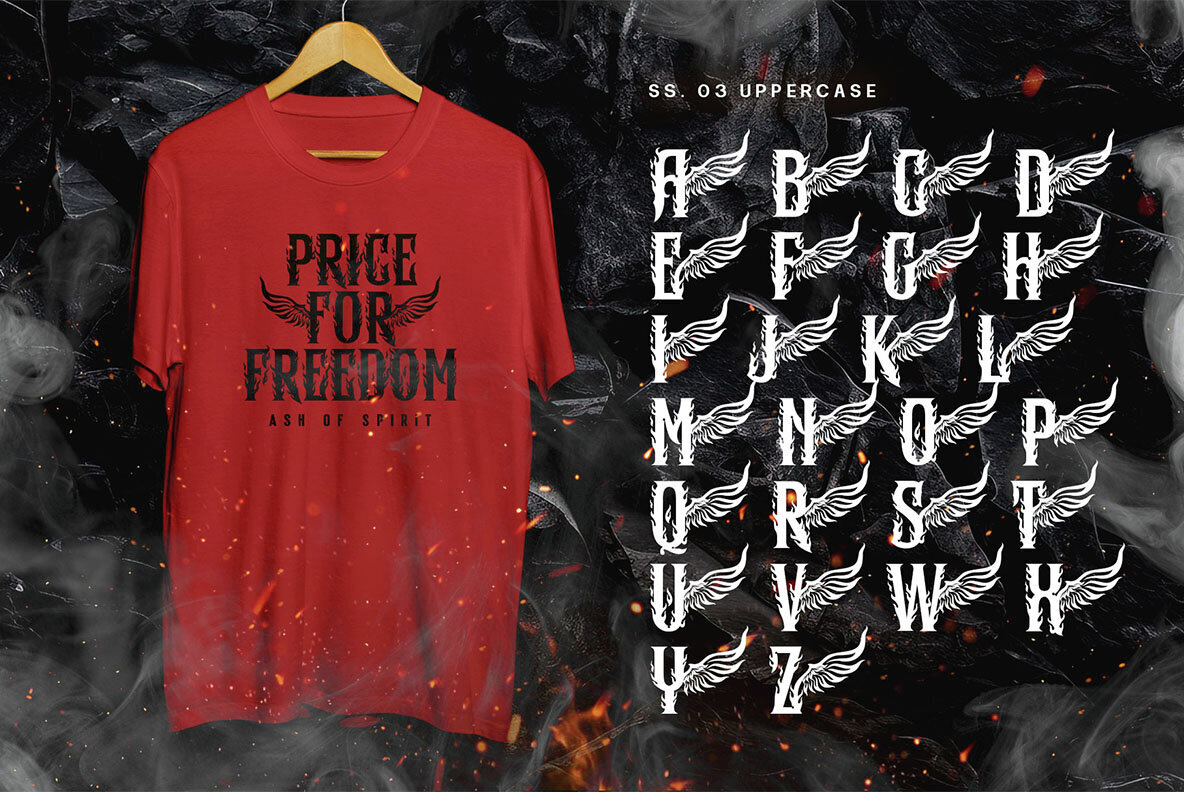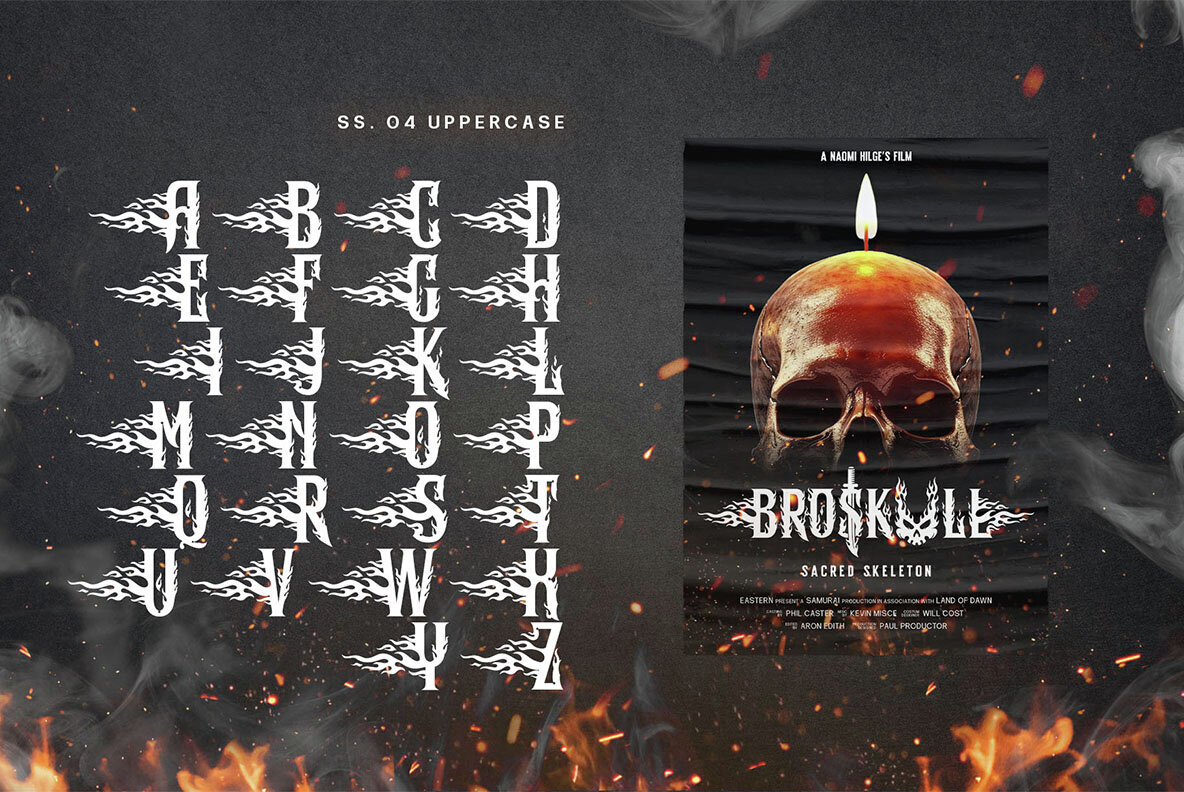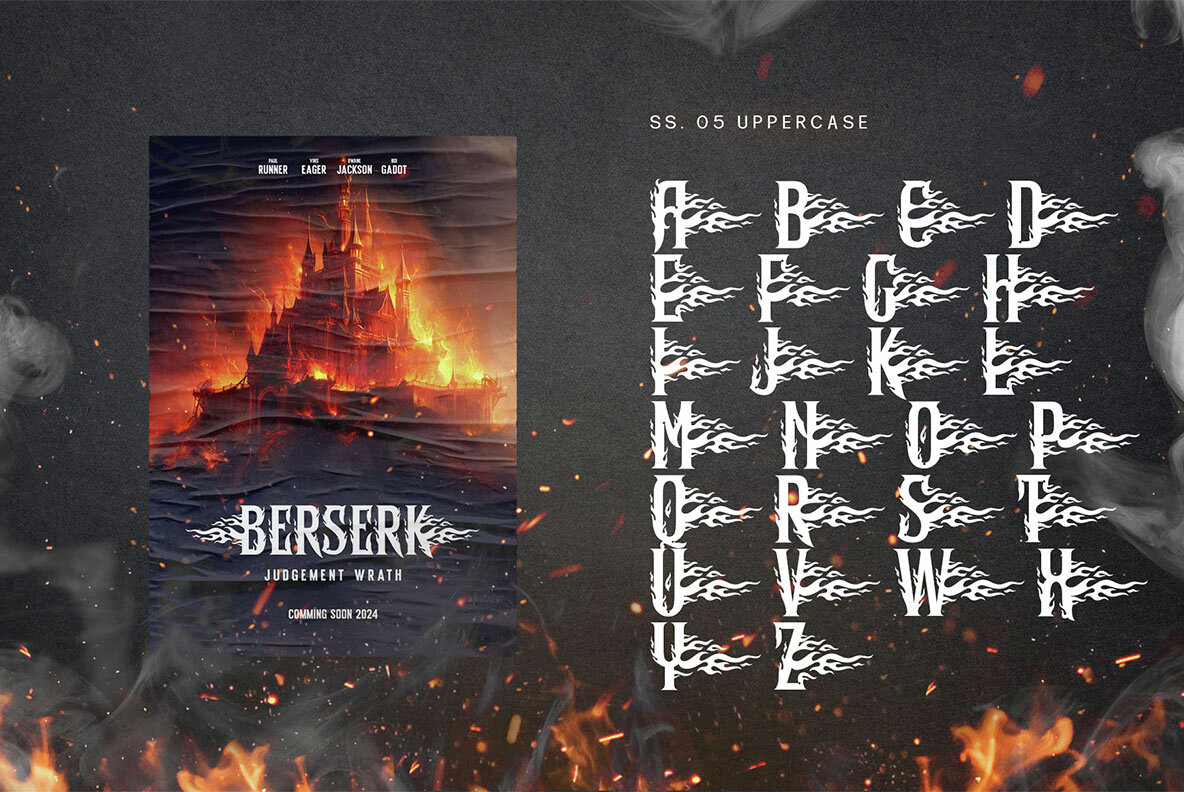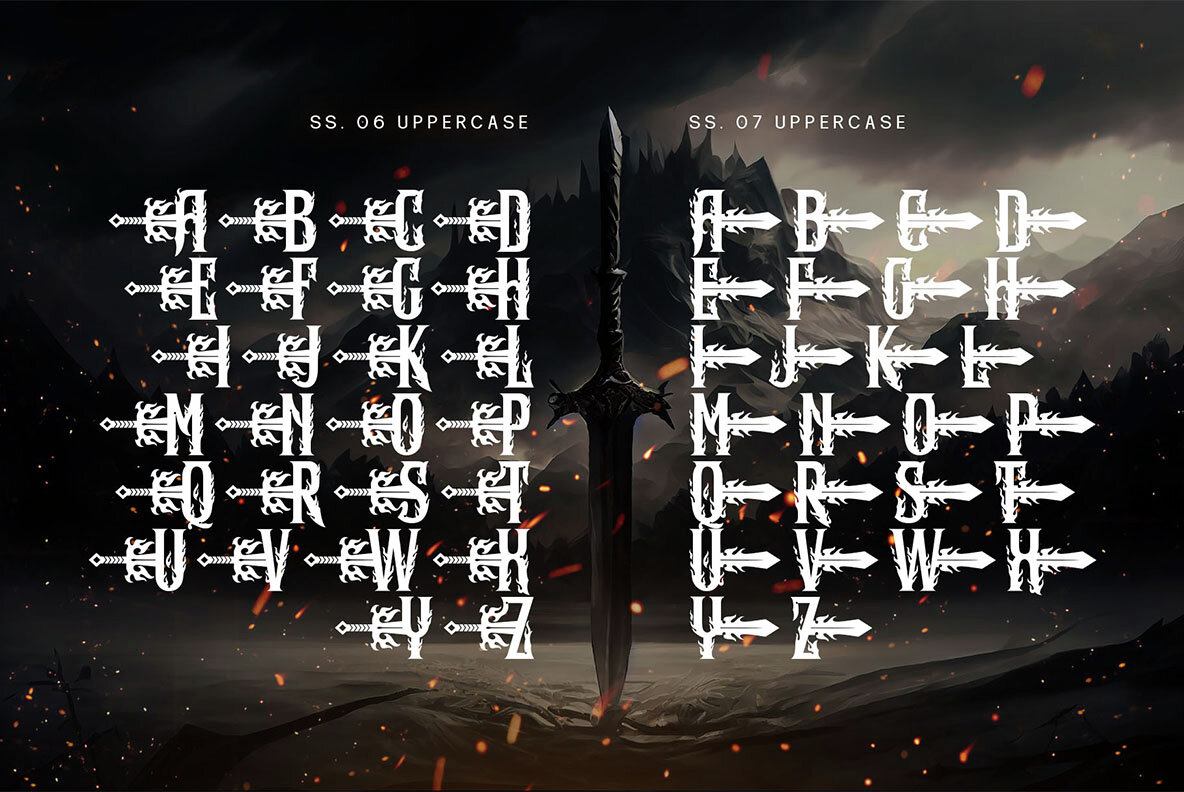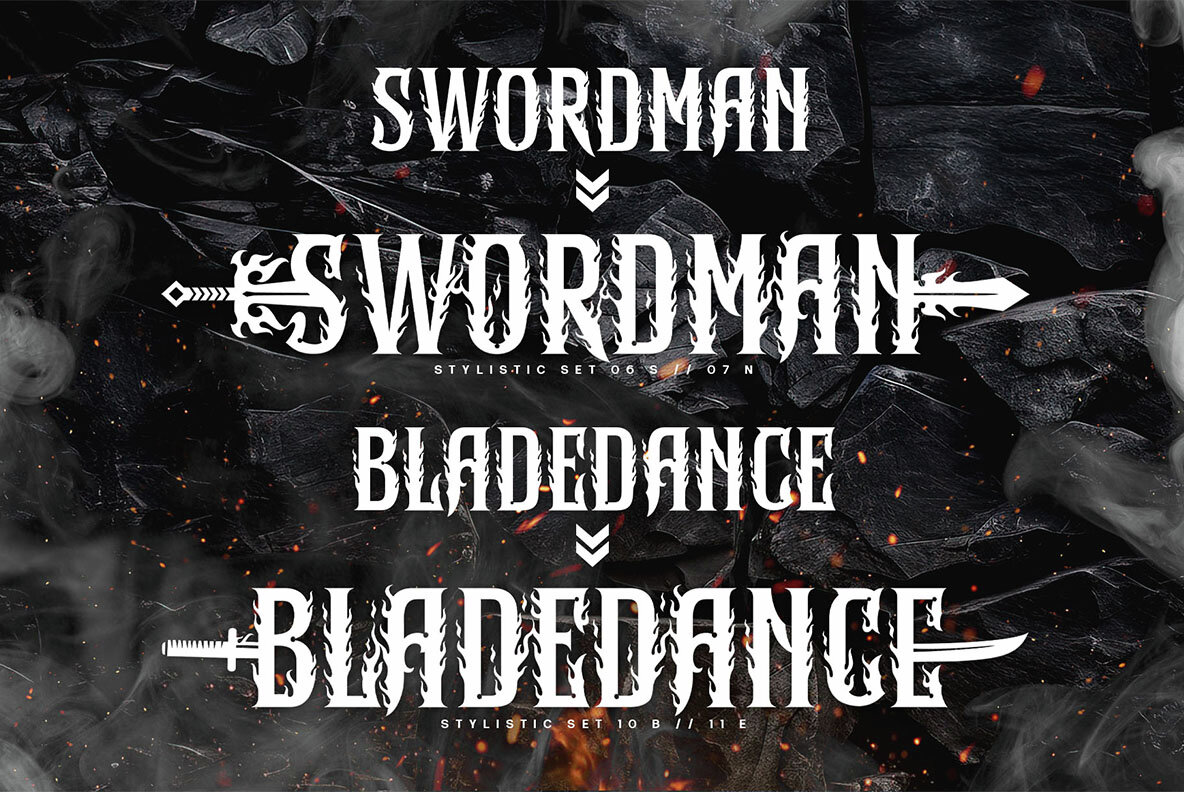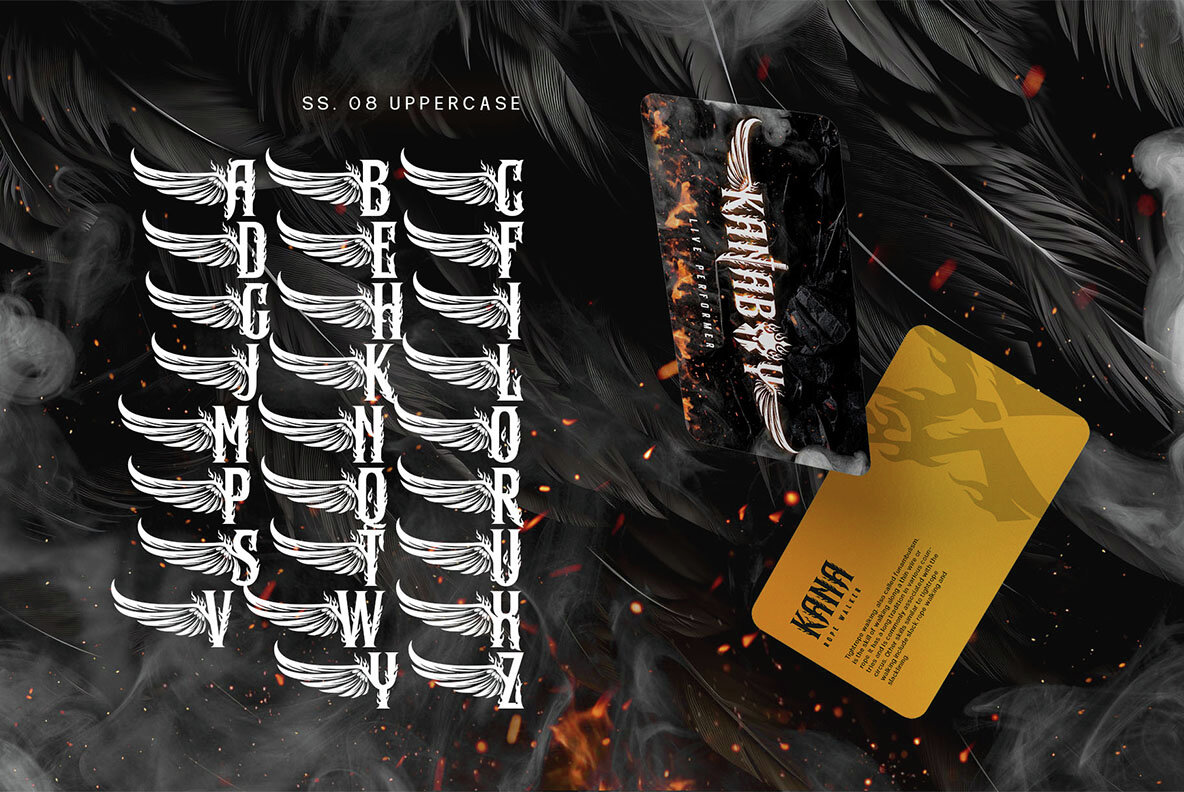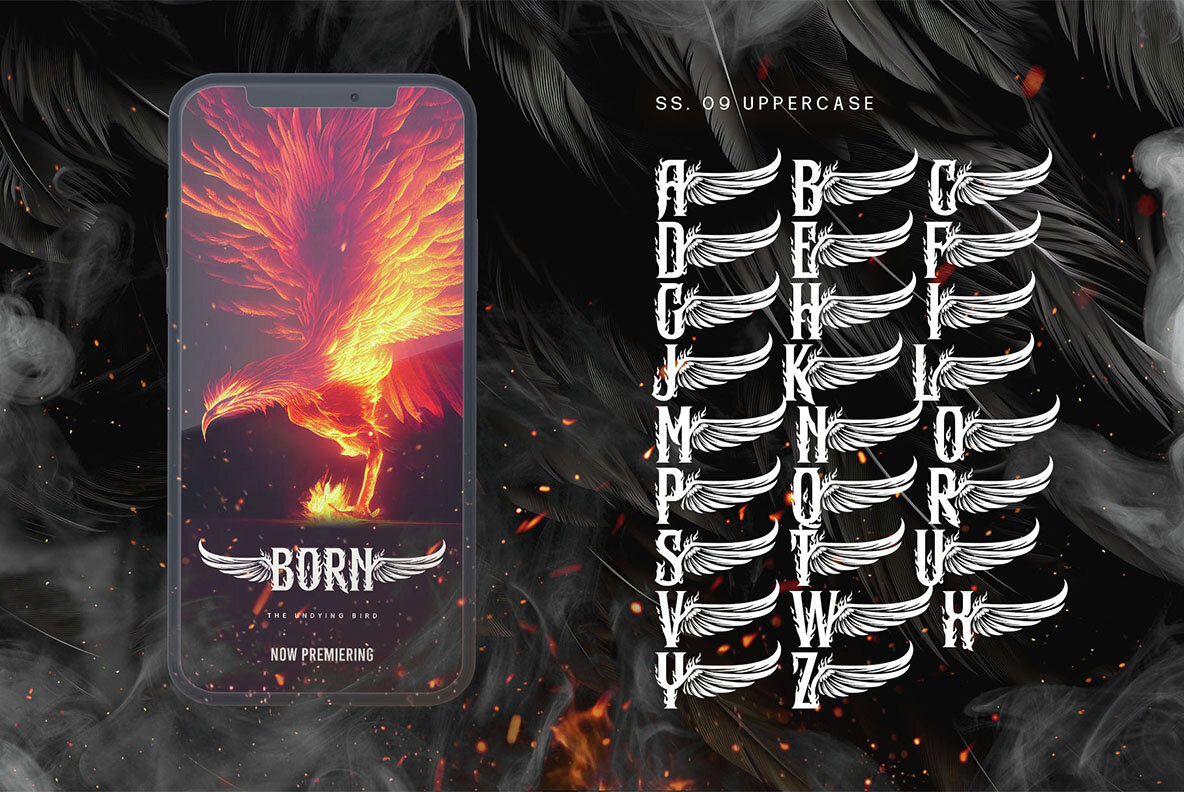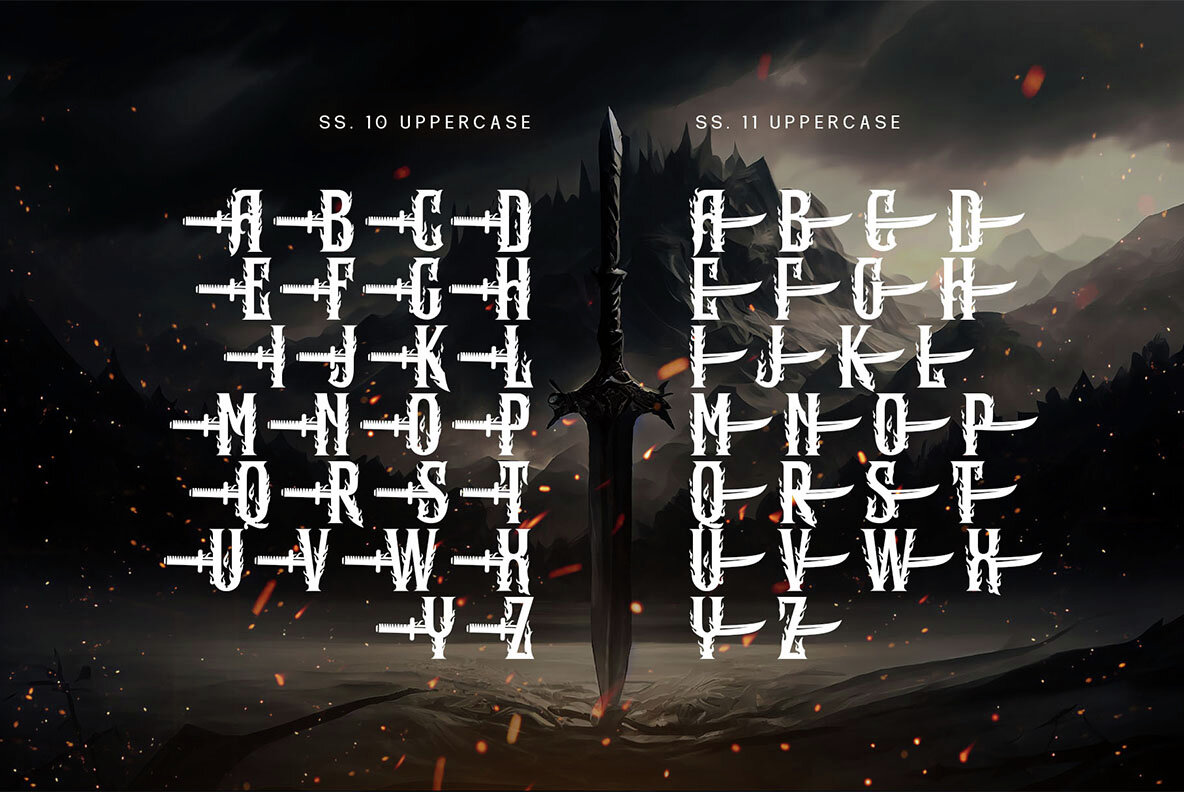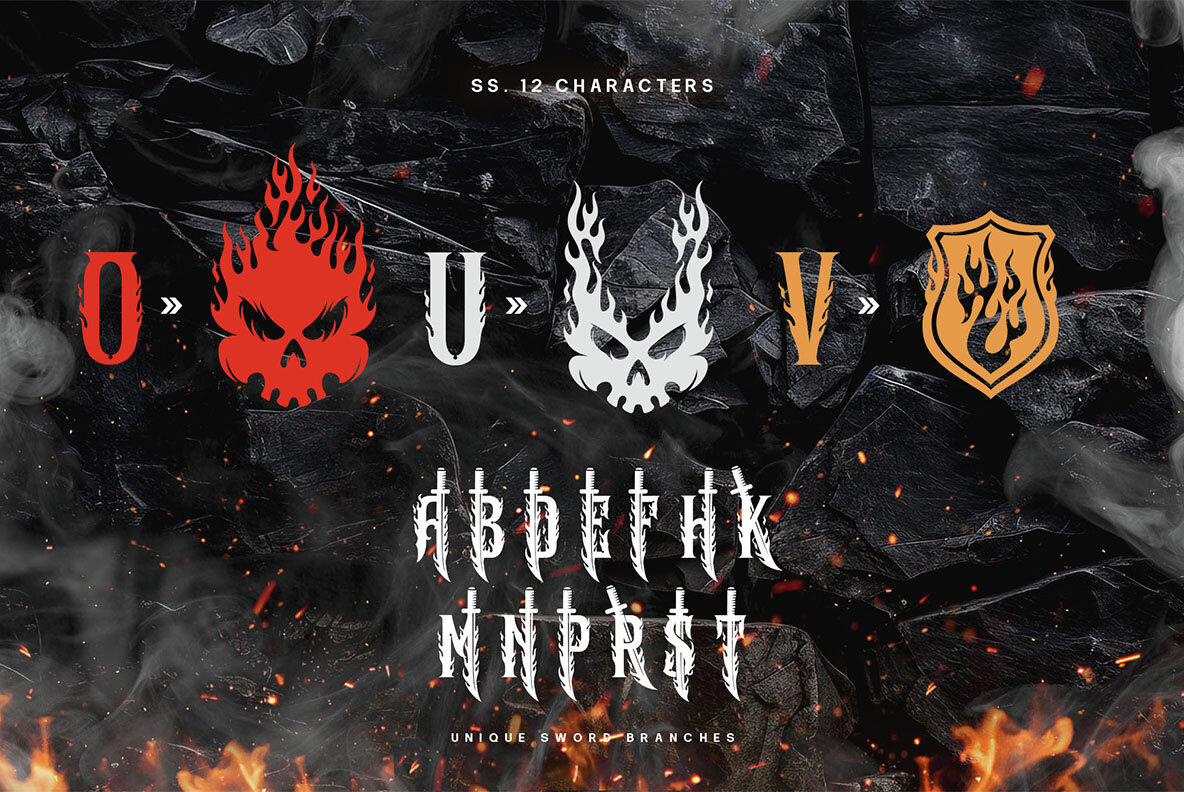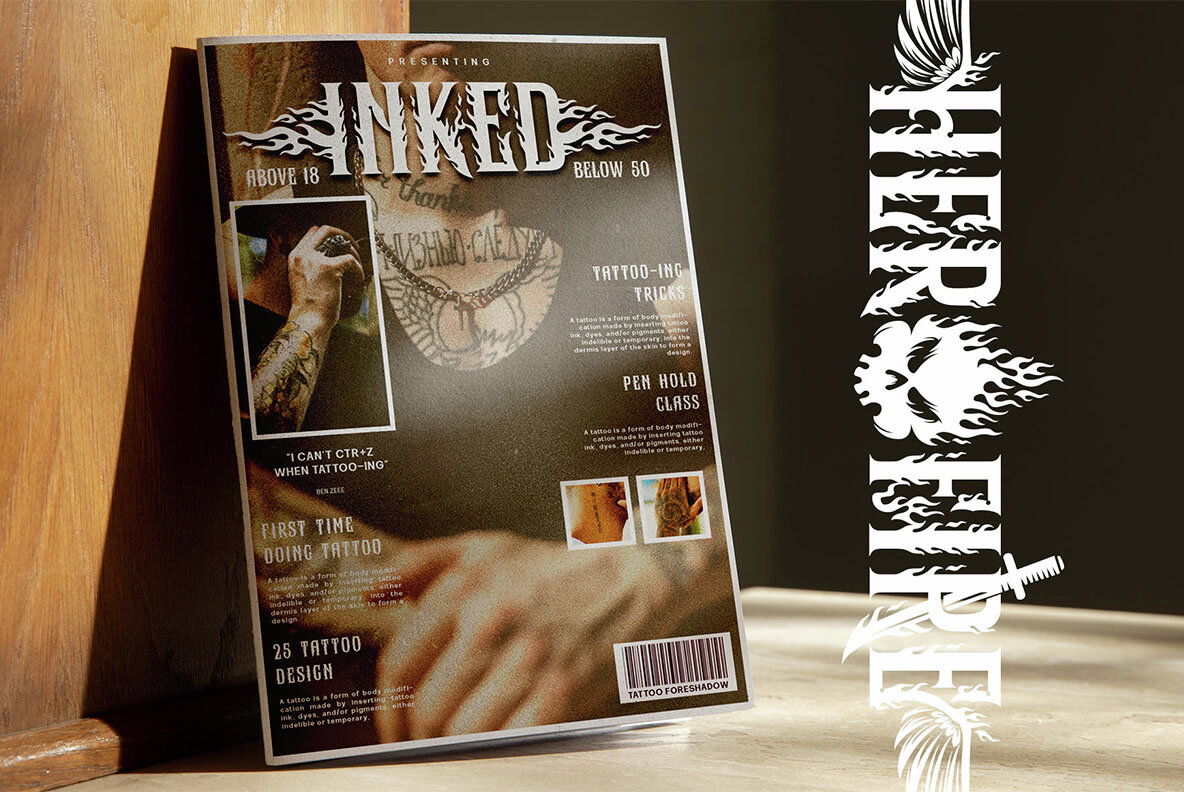
Hero Fire Font
Hero fire Regular
Hero Fire is a dynamic and bold typeface that captures the essence of a powerful superhero. Meticulously crafted with strong serifs, each character exudes strength and resilience. The design seamlessly blends classic typography with iconic superhero elements, making it a distinctive choice for display purposes. Hero Fire is particularly well-suited for projects requiring a strong and impactful display font. Its superhero-themed illustrations make it perfect for comic book titles, movie posters, gaming graphics, and any design where a bold and dynamic aesthetic is desired. Embrace the power of Hero Fire to infuse your designs with a heroic and captivating spirit!Hero Fire: A Bold Typeface with Superhero Flair
Illustrative Elements
Distinctive Characteristics
Usage Recommendations